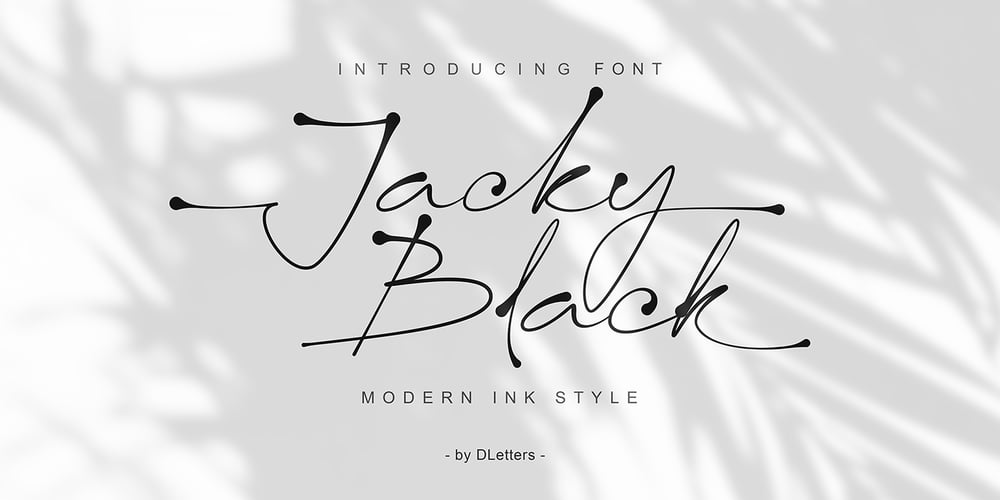
Jacky Black Font Family was designed by Diosi Julianto and published by DLetters Studio. Jacky Black contains 1 styles and family package options. Jacky Black, Handwritten ink style letters font that have a simple and natural shape, but still look elegant and exclusive. Jacky Black, It is suitable for use in your creative ideas, who want unique and natural-looking writing to support your beautiful design.This is a listing of all 229 glyphs contained in the font, including OpenType variants that may only be accessible via OpenType-aware applications.Each basic character (“A”) is followed by Unicode variants of the same character (Á, Ä…), then OpenType variants (small caps, alternates, ligatures…). This way you can see all the variations on a single character in one place.Thanks for your support, please kindly send us a message for any question about our product.Hope you like it.